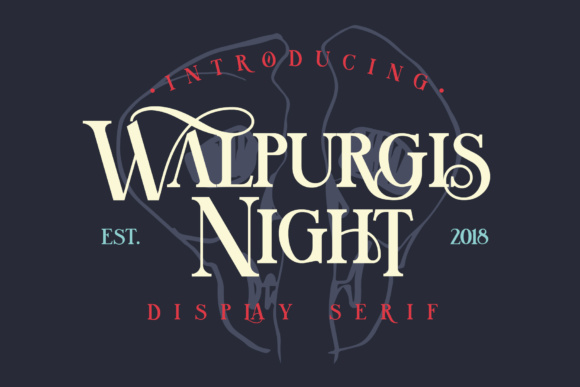
Walpurgis Night is an elegant, majuscule, vintage serif font inspired by classic, antique fonts.
Walpurgis Night perfectly represents modern and vintage aesthetics. Walpurgis Night includes special uppercase letters,
many alternate characters and beautiful ligatures.
Walpurgis Night is perfect for wedding elegant invitation cards, beauty and fashion package designs, books designs, magazines typographys, packaging, branding and more other creative projects.